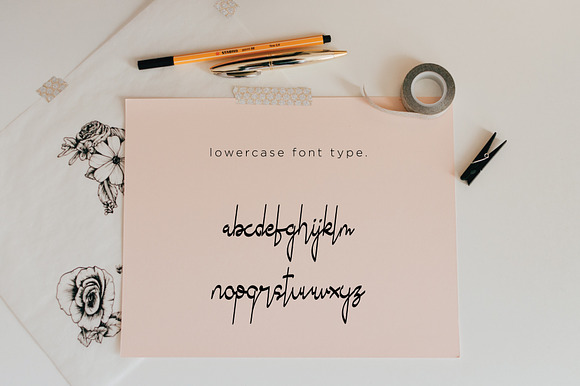
Moonalitta Feminine Font Type
introduce feminine font designs for weddings and more beauty nuance and feminine ... font design from uppercase, lowercase and ligature style ... simple but very beautiful and charming...
- font design from uppercase, lowercase and ligature style ...
Moonalitta Feminine Font Type by Choir96 fits naturally into Branding, posters, packaging, typography.